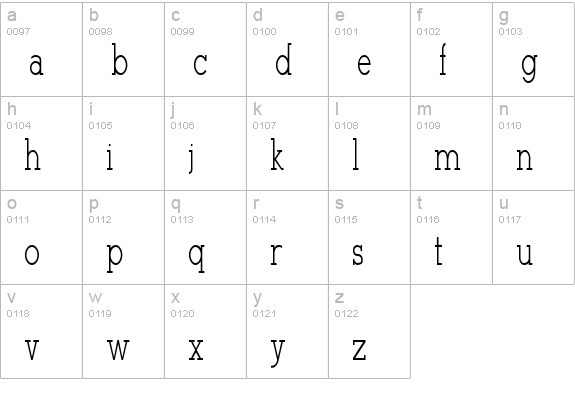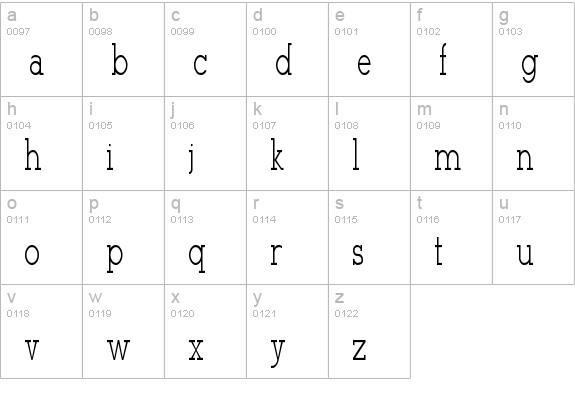
Stymie-Light Regular is a refined, elegant variant in the Stymie typeface family \xE2\x80\x94 well suited to elegant body text, refined sub-headings, and luxury branding.
Stymie-Light Regular font is a modern and versatile typeface that exudes elegance and sophistication. Its clean lines and balanced proportions make it ideal for a wide range of design projects, from branding to editorial content. The font's light weight adds a touch of delicacy and refinement, making it perfect for conveying a sense of grace and sophistication. And the best part? Stymie-Light Regular font is available for free download at FontsMarket.com. Whether you're a designer looking to add a touch of sophistication to your projects or a blogger in need of a stylish typeface for your website, Stymie-Light Regular font is the perfect choice. Don't miss out on this fantastic opportunity to enhance your designs with this beautiful and versatile font – download it for free today at FontsMarket.com!